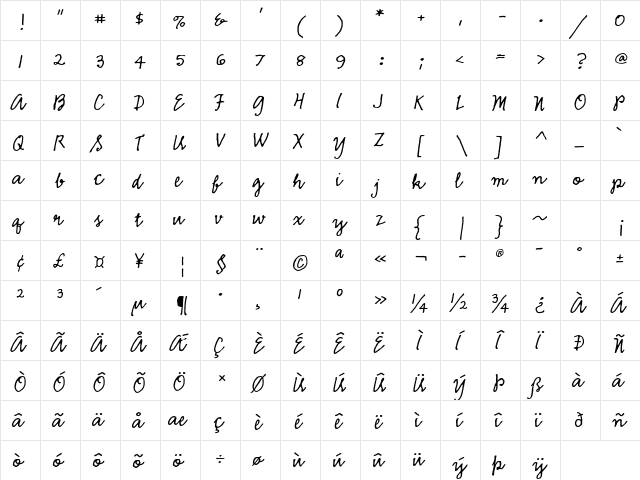
Emmascript MVB Std Regular
| Designer | Kanna Aoki |
Design Context for Emmascript MVB Std Typeface
Emmascript MVB Std flows with the natural rhythm of handwritten lettering, making it ideal for designs that call for warmth and personal expression.
Font Pairing: Combine Emmascript MVB Std with a simple geometric sans for maximum contrast — the tension between flowing curves and clean structure is a classic typographic pairing.
Pro Tip: Use Emmascript MVB Std for short runs of text — names, titles, or taglines. Extended body copy in script faces tires the eye quickly.